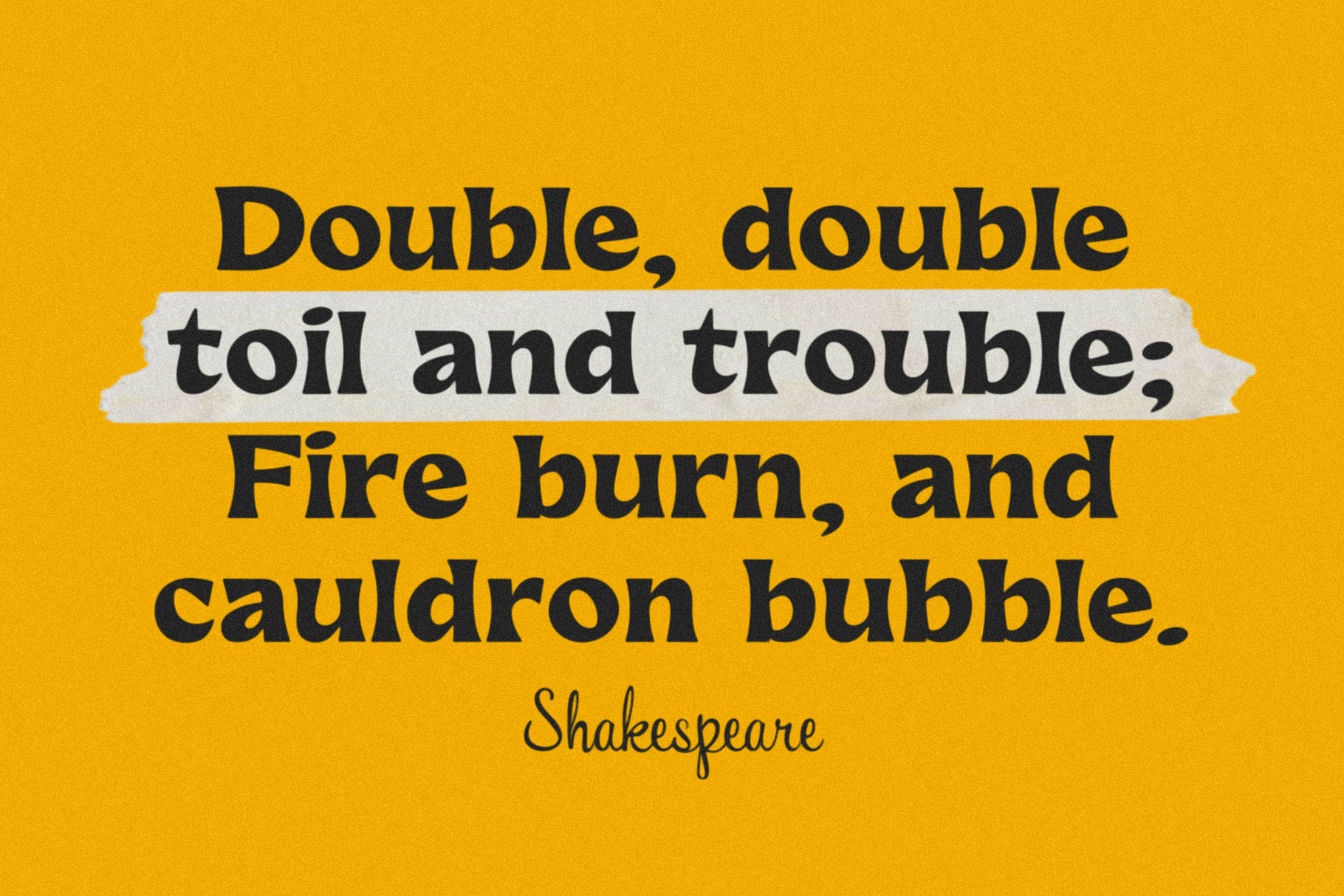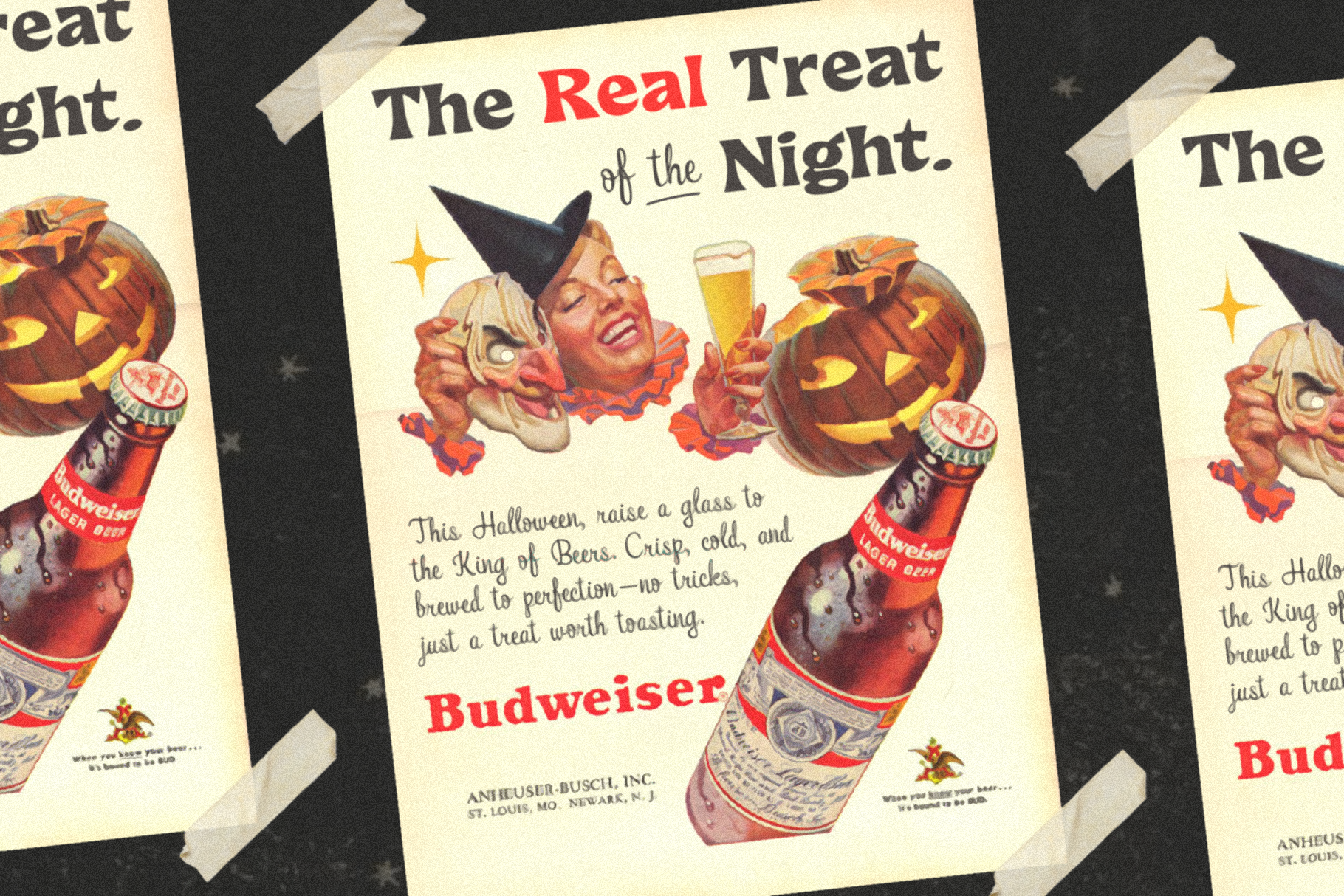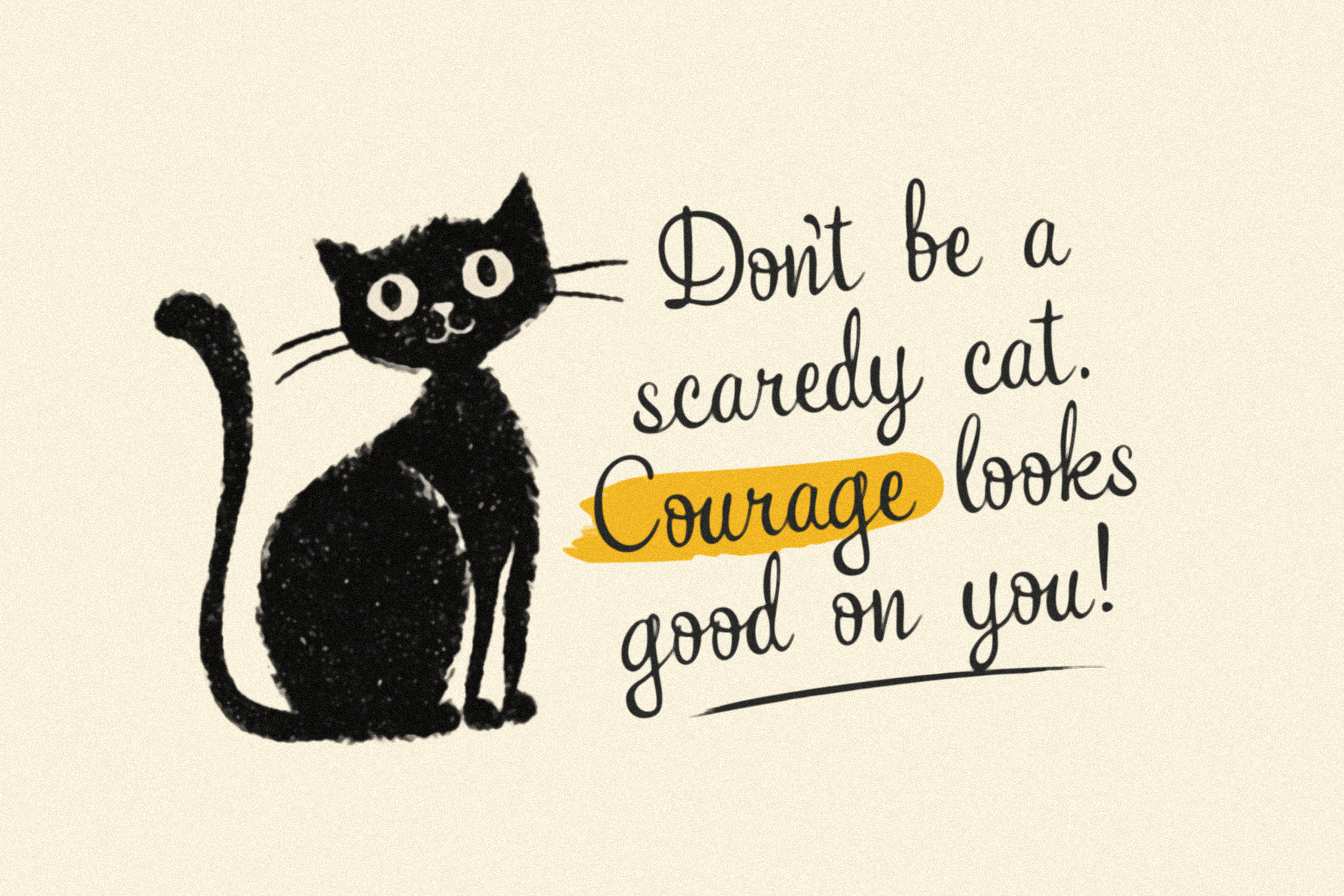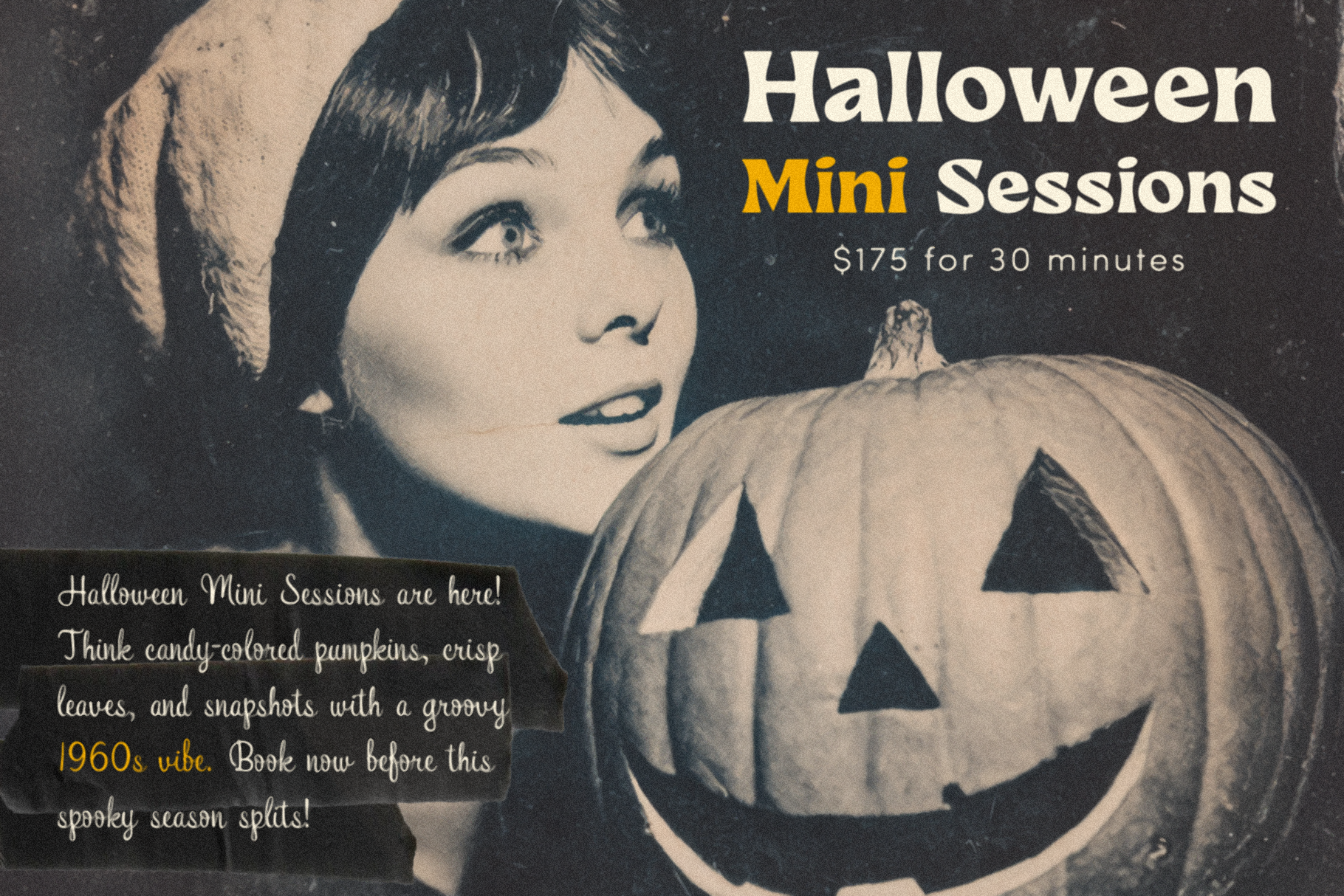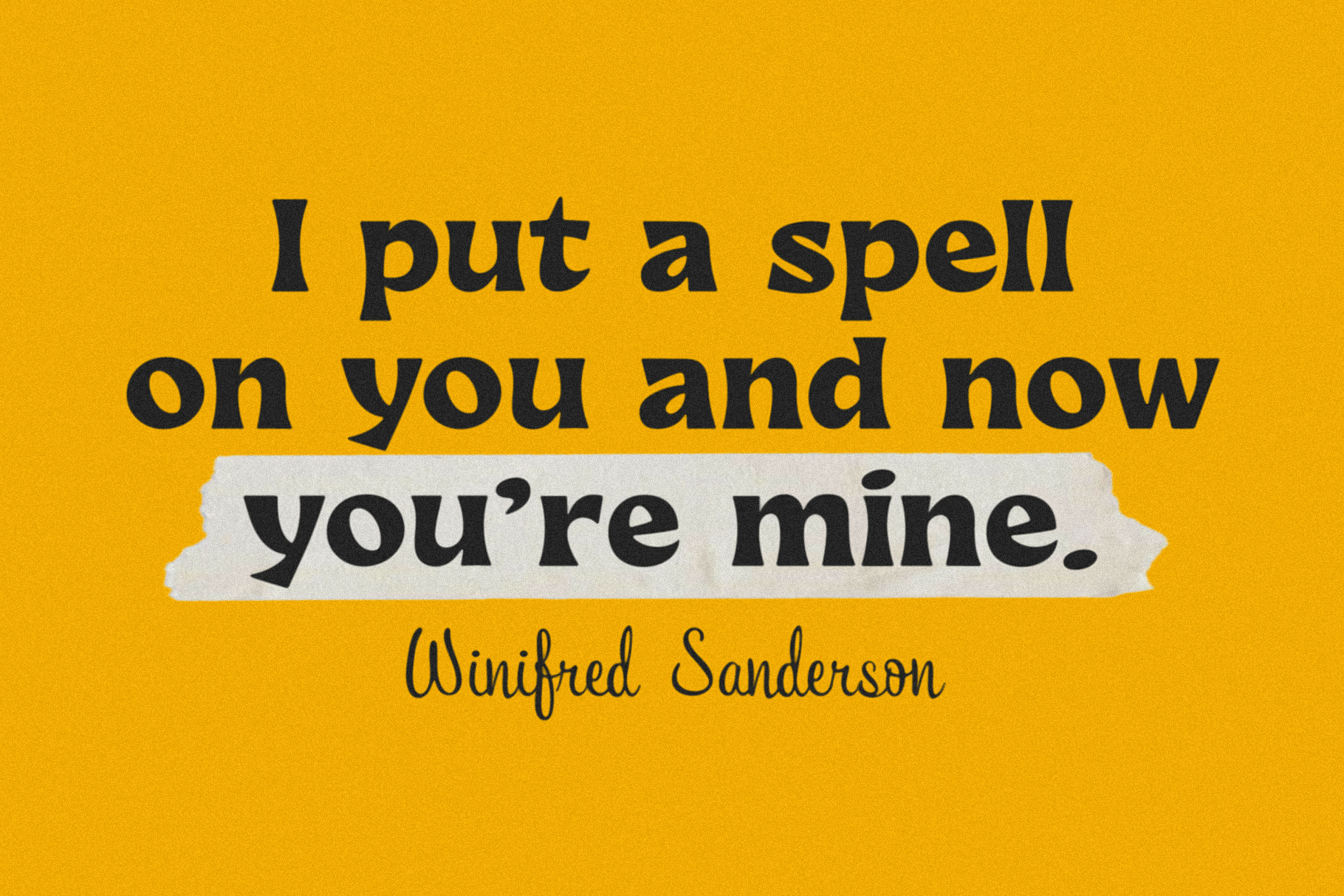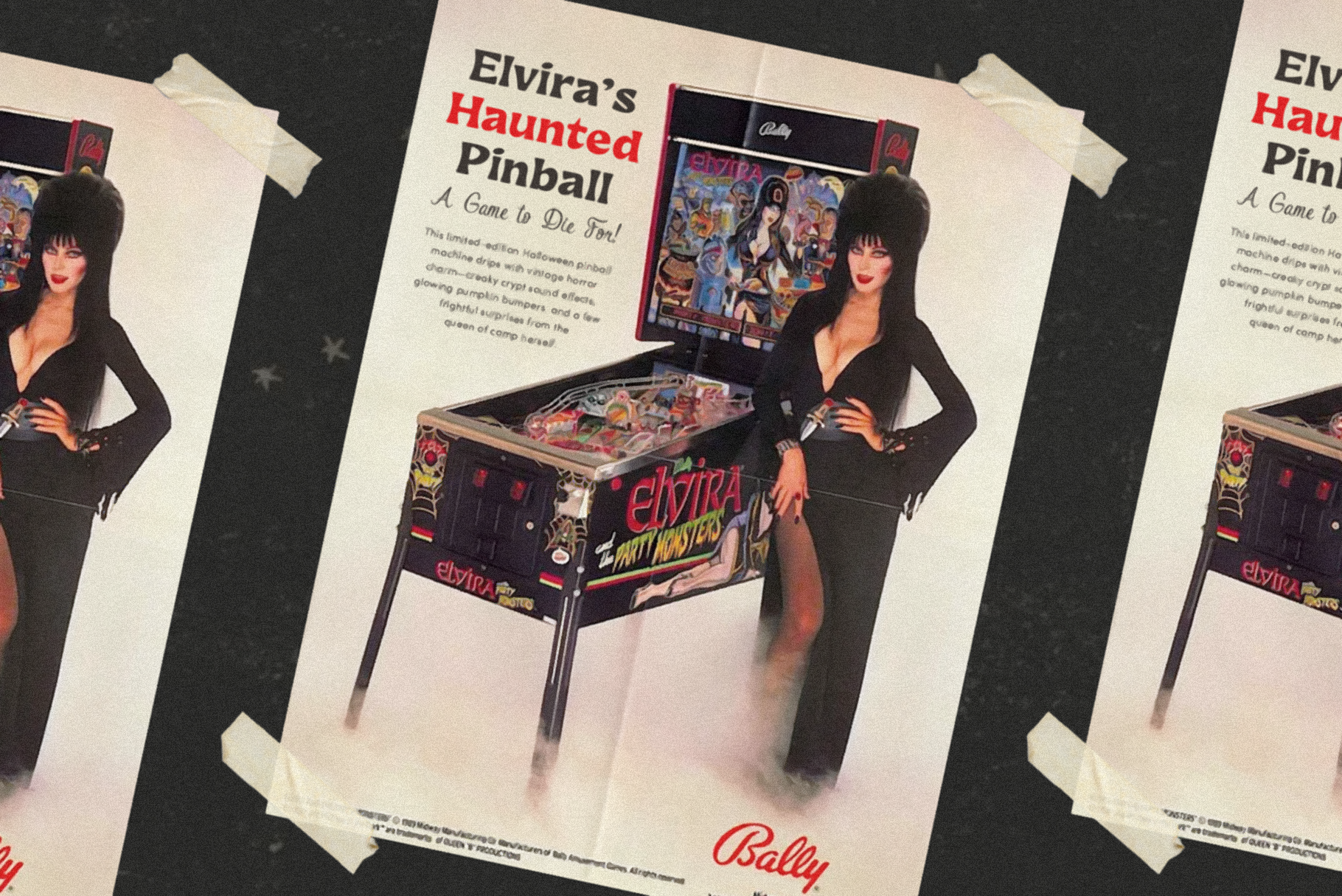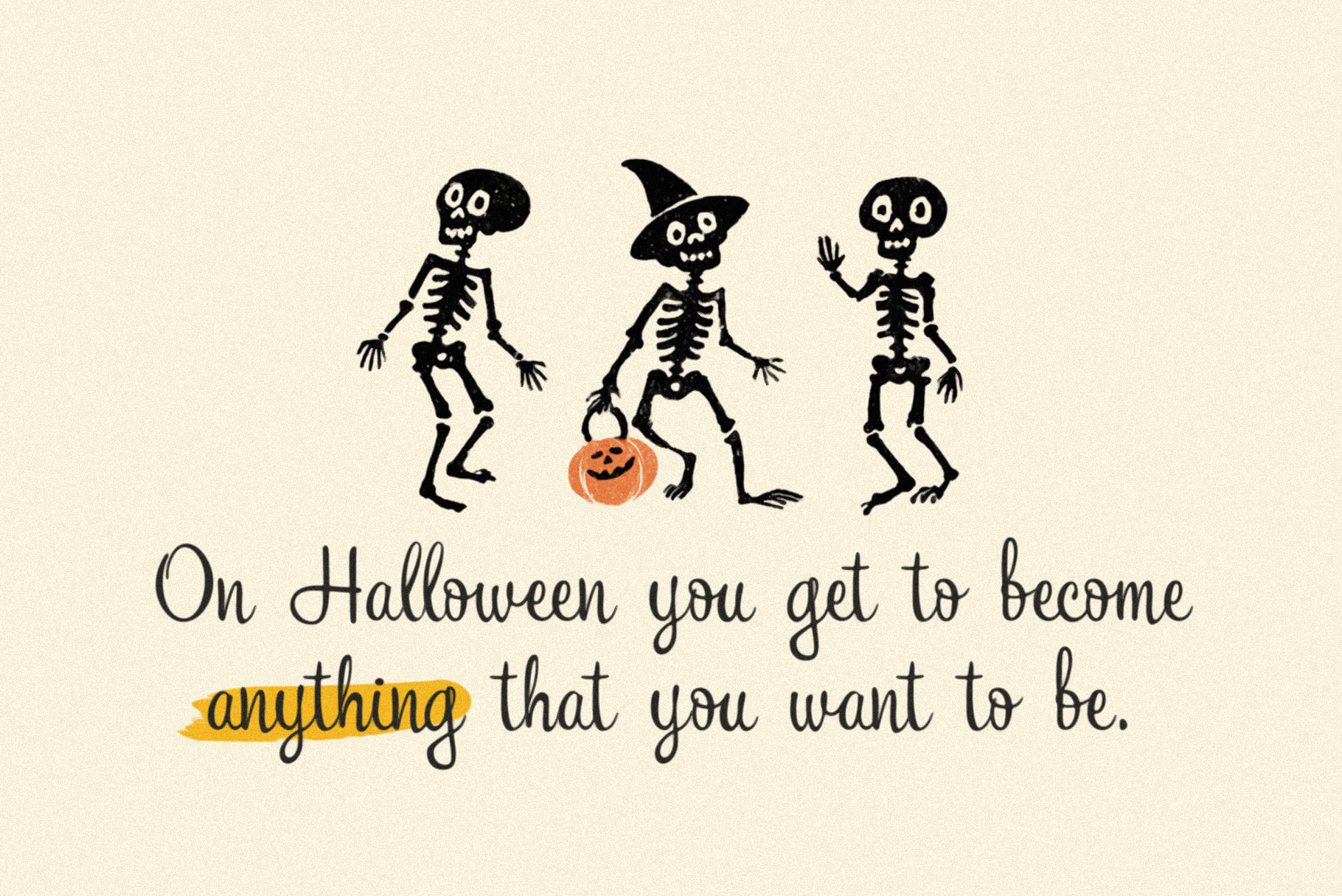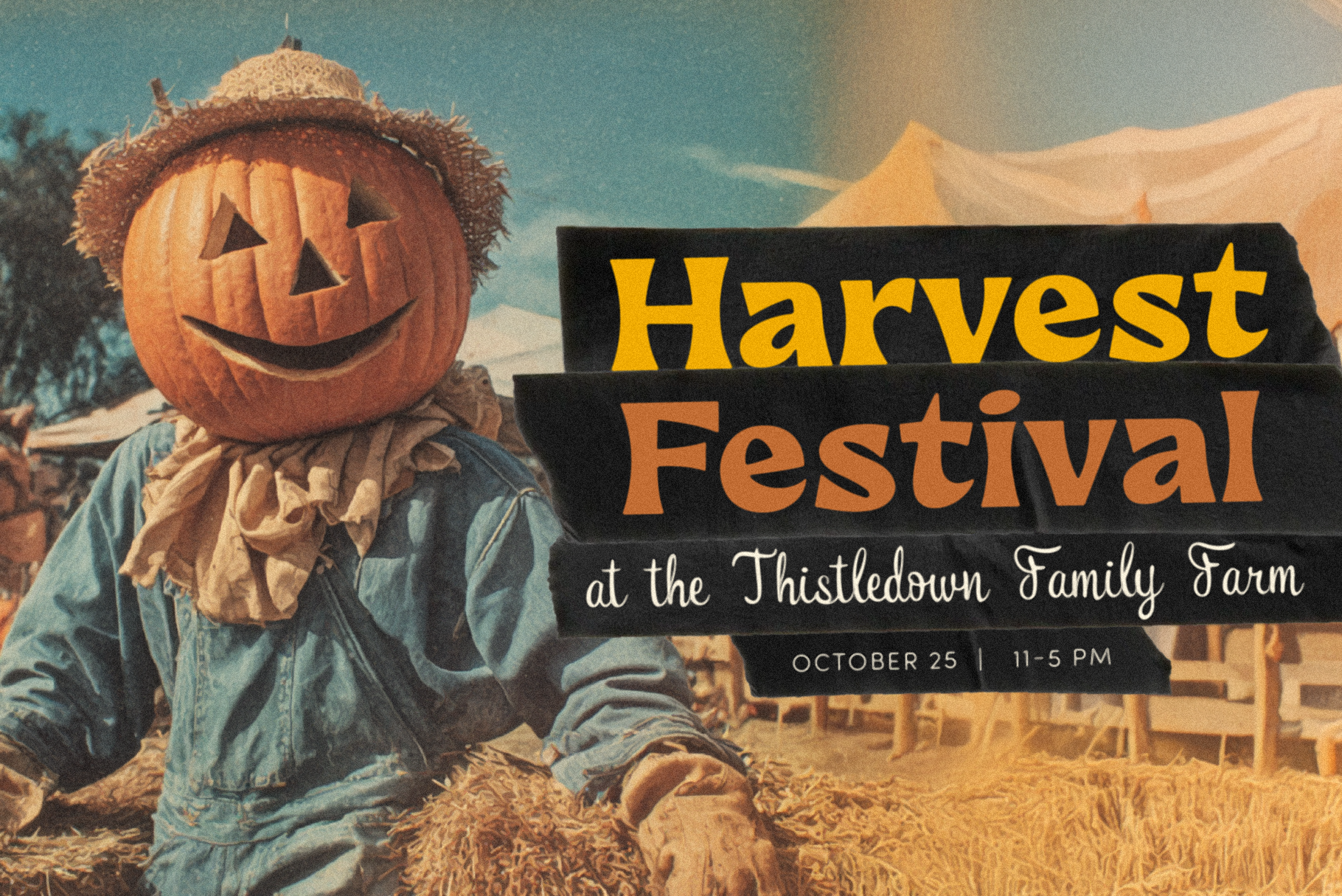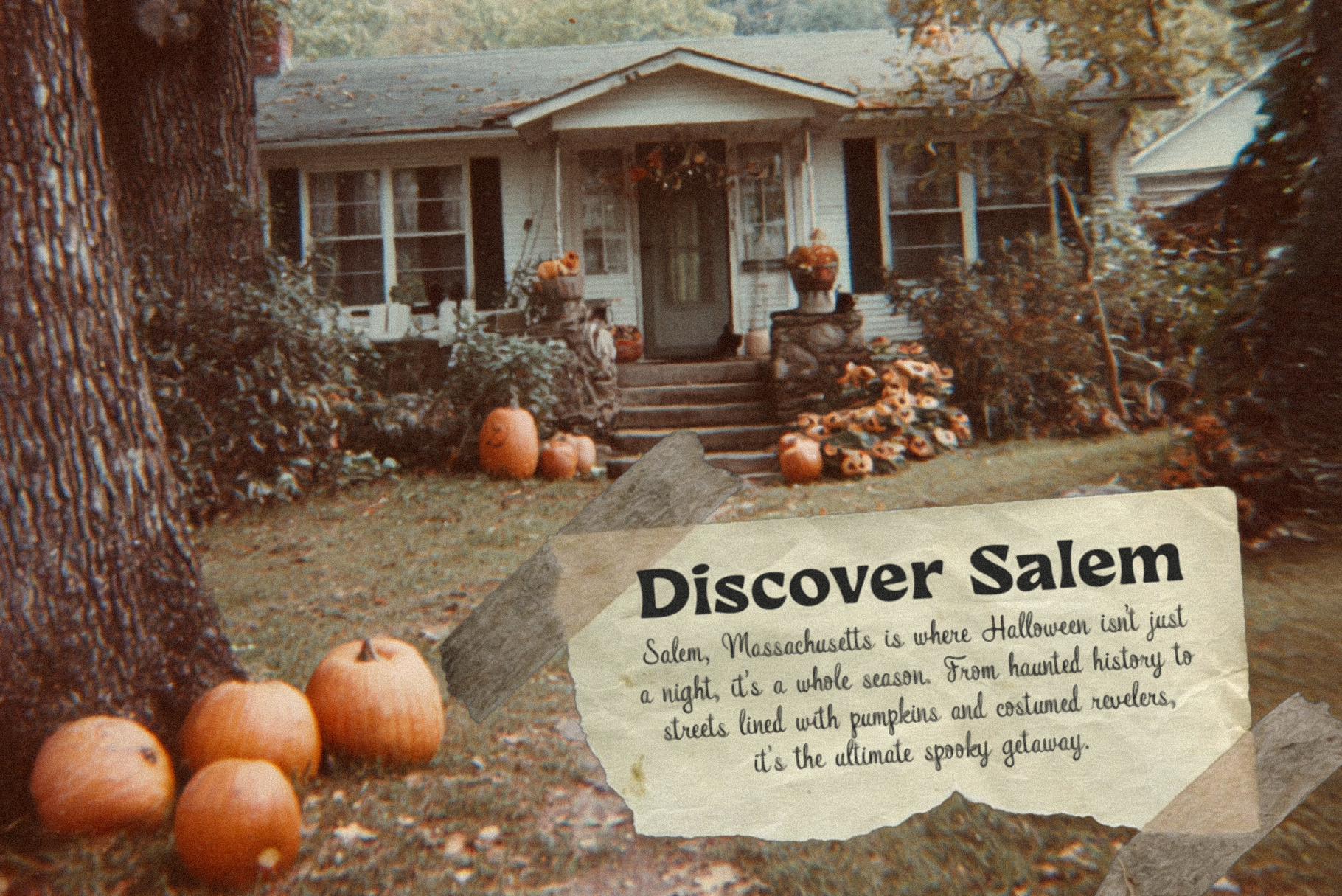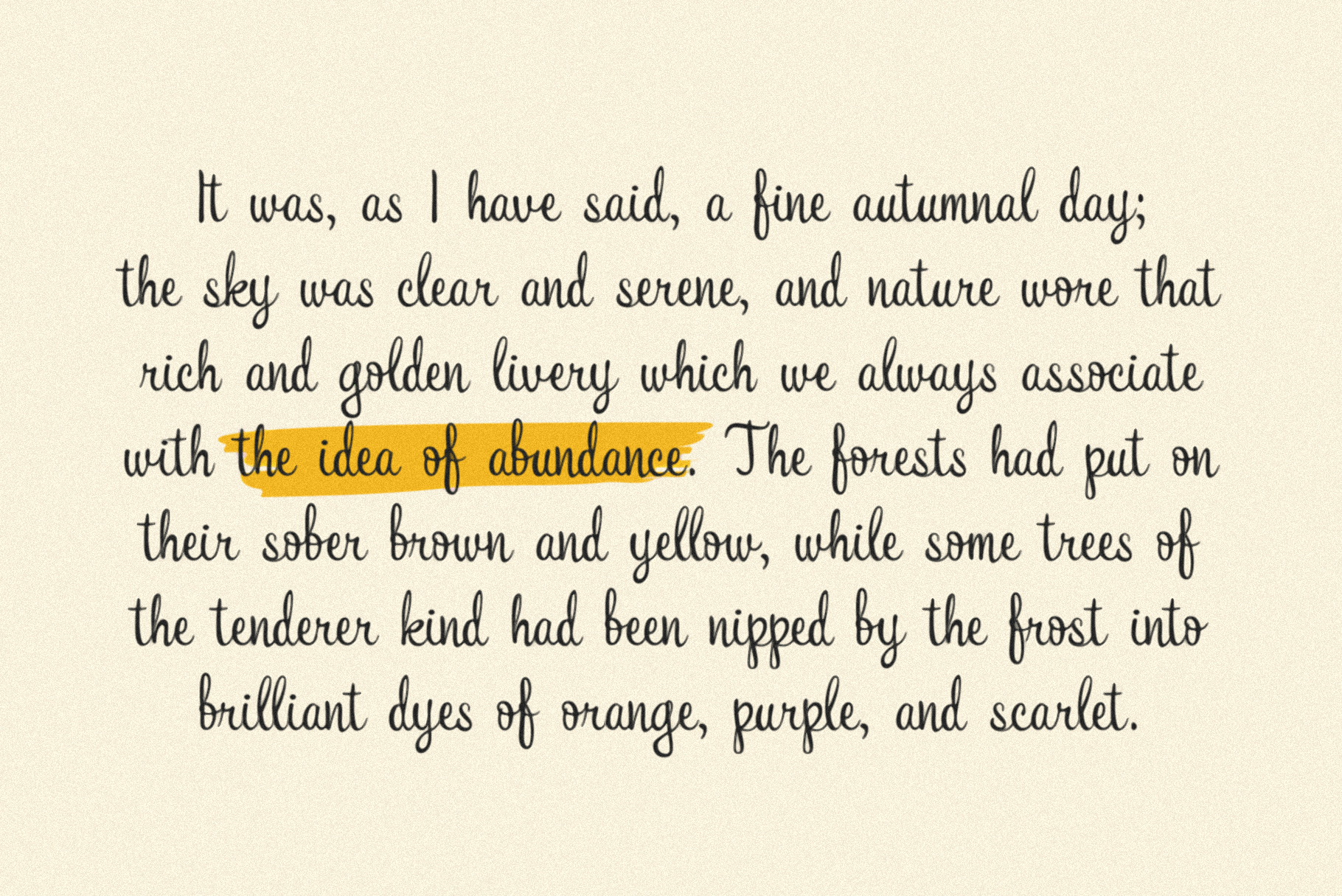
Jack's Lantern
JACK'S LANTERN – A vintage Halloween font collection by Bruised Goods.
360 Glyphs Total: Uppercase and Lowercase Characters, Numbers, Symbols, and Punctuation.